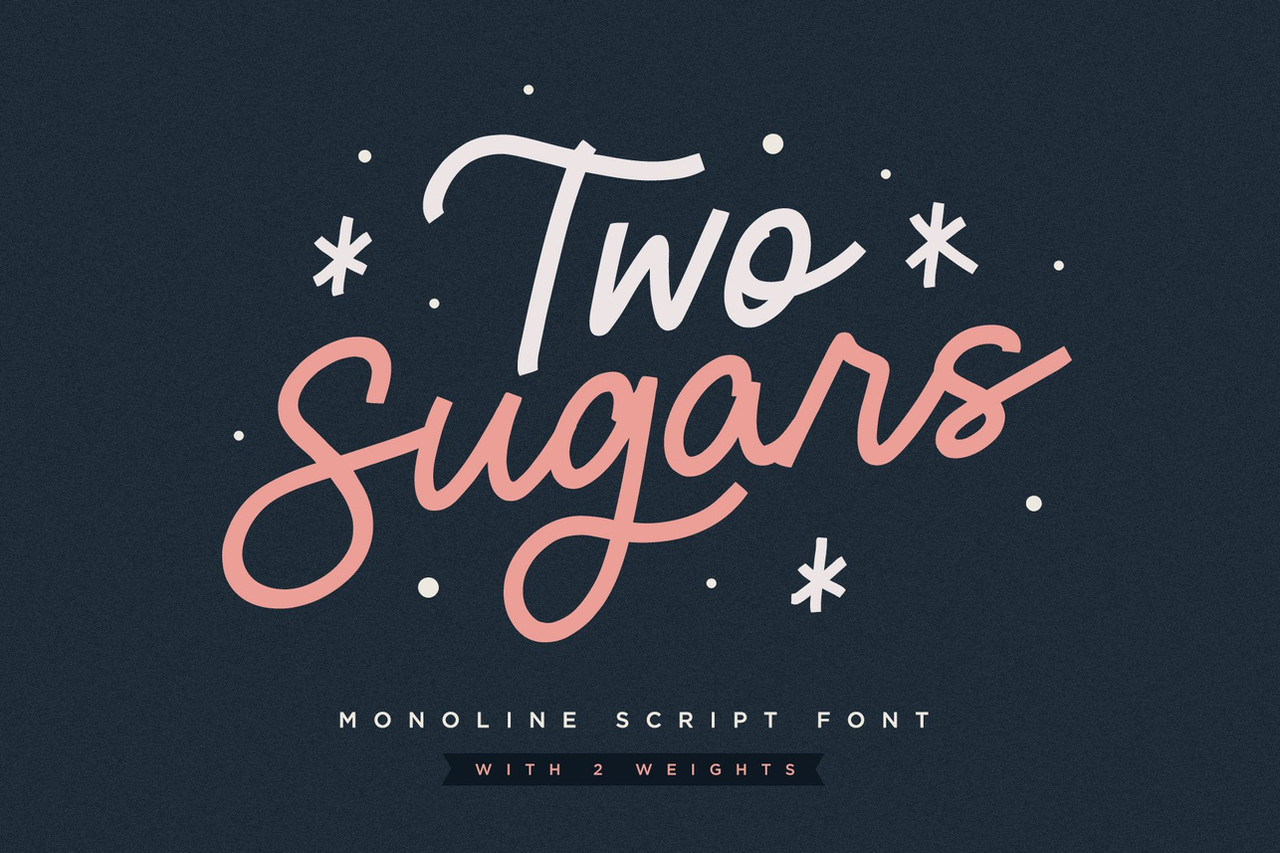
Introducing the **Two Sugars** Script Font! Two Sugars is a playful yet striking clean monoline script font, available in 2 weights and includes bonus extra stars & underlines. Its chunky, hand-drawn letterforms are guaranteed to stand out whether that be on light hearted merchandise designs or more impactful quote designs. ---